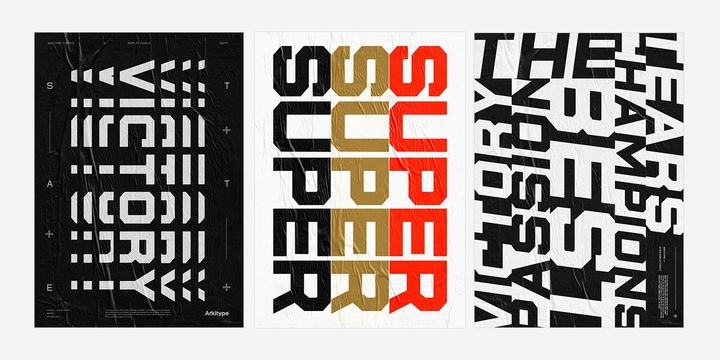
State Wide Soft Font
State Wide Soft Font is perfect for community health campaigns, educational institution branding, family service organizations, public library signage, local government communications, social service marketing, neighborhood association materials, and accessible public information design.
What makes State Wide Soft Font exciting is its approachable authority that combines institutional credibility with warm accessibility for diverse community audiences. The font features softened letterforms with gentle curves and inclusive proportions that evoke community centers, public parks, and the welcoming spirit of civic engagement. Its distinctive friendly styling and democratic appeal communicate trust, inclusivity, and public service dedication, making every message feel designed for all citizens and accessible to every community member.
The State Wide Soft Font family includes regular weight with uppercase and lowercase letters, numerals, punctuation marks, and comprehensive special characters. Premium versions often feature multiple weights and accessibility-focused alternates that enhance the inclusive, community aesthetic perfect for public service applications.
This welcoming institutional typeface brings instant approachability and civic credibility to any community-focused project. State Wide Soft Font Free Download delivers exceptional results for organizations serving diverse populations and seeking to communicate public service values, community support, and inclusive accessibility to all residents.
The inclusive character of State Wide Soft Font makes it particularly valuable for public health departments, community colleges, and nonprofit service organizations. Its excellent readability ensures important public information remains clear while maintaining the distinctive approachable aesthetic that appeals to citizens seeking accessible government services and community support.
Public service communicators appreciate how State Wide Soft Font effortlessly conveys institutional trustworthiness and community warmth. The font's gentle proportions and inclusive details create welcoming public materials that establish confidence with audiences seeking reliable public services and community engagement opportunities.
The versatile accessibility of this typeface extends to senior services, disability advocacy, and multilingual communications where inclusive design enhances public outreach effectiveness. State Wide Soft Font Free Download provides creative professionals with an essential tool for developing memorable, community-centered designs that resonate with audiences who value public service excellence, community inclusion, and the welcoming accessibility of democratic institutions serving all citizens.